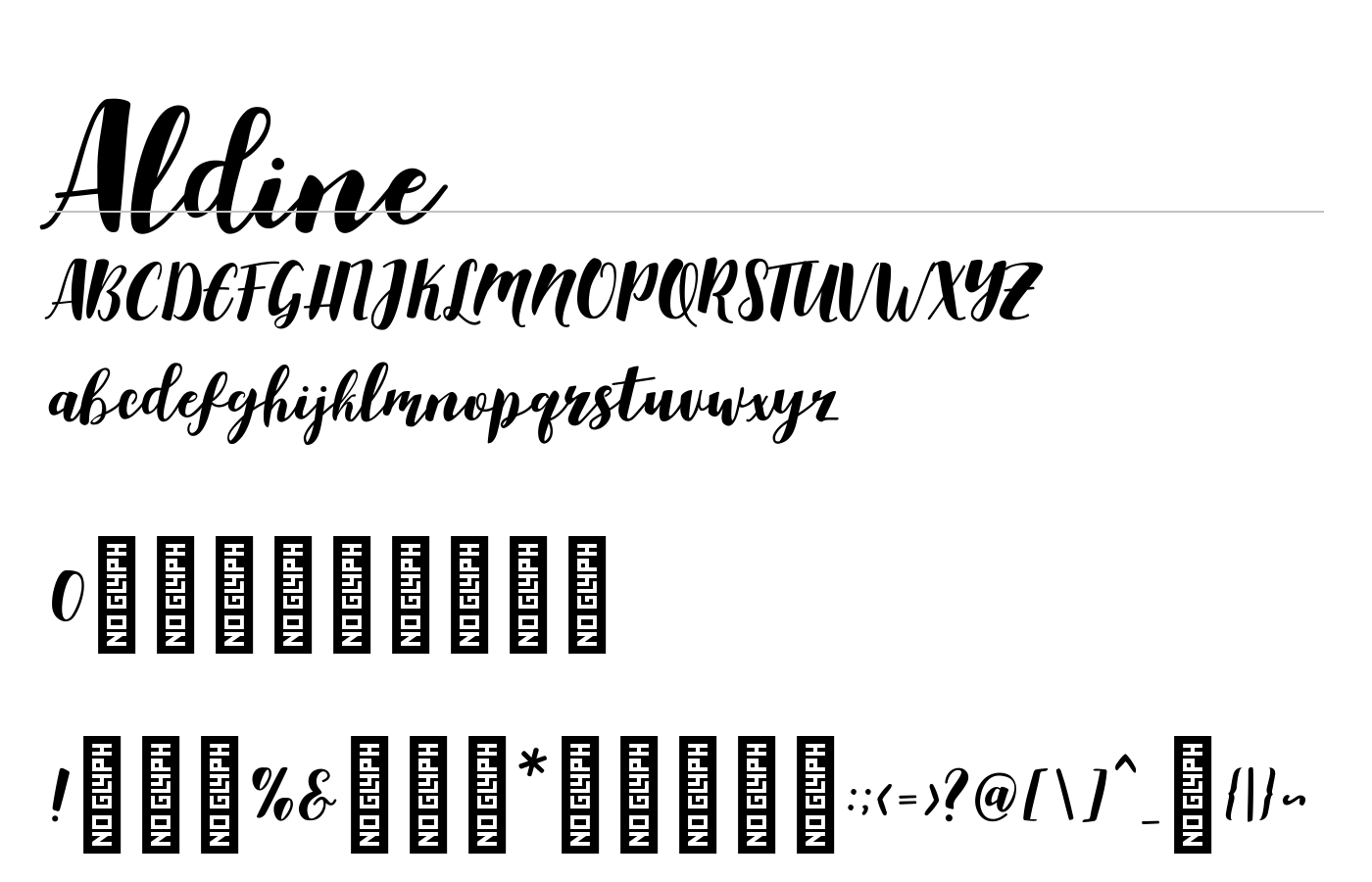
Aldine is a bold, brush-style script font with a strong handwritten feel that combines elegance with a lively, playful energy. Its smooth, flowing strokes and varying thicknesses make it ideal for eye-catching headlines, logos, and branding that seek a personal and artistic touch. This font works particularly well in creative, fashion, and lifestyle contexts where a dynamic and stylish expression is desired.
Aldine Font
About Aldine Font
| Font family | Aldine Font |
| Designer | syafrizal / khurasan |